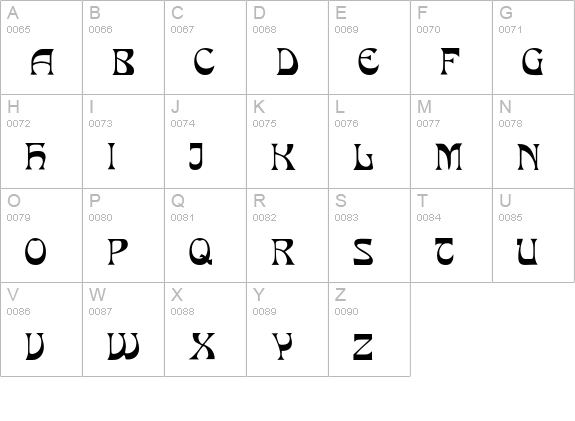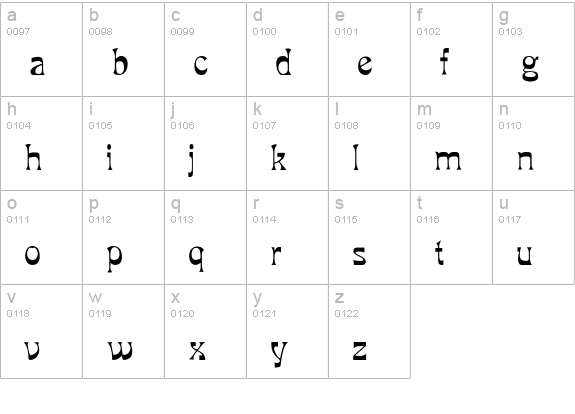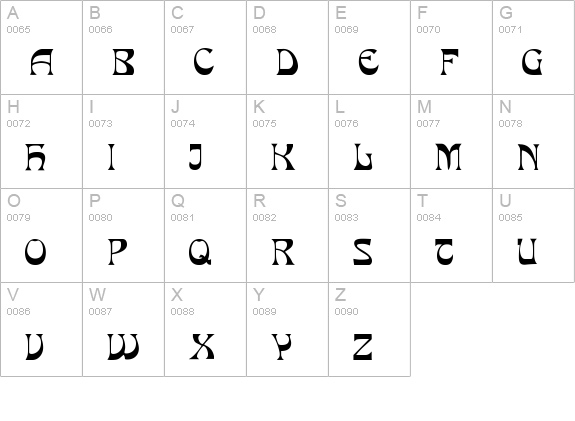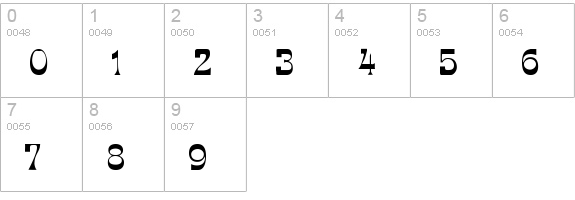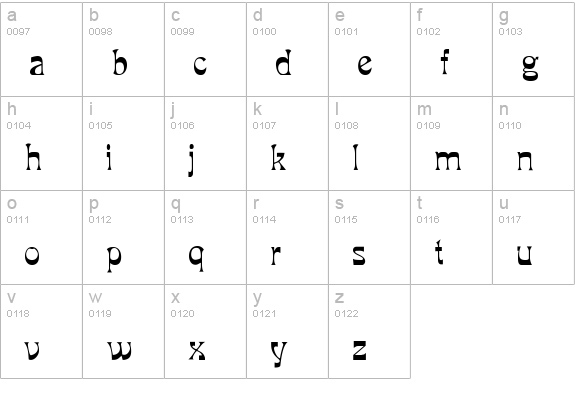
Campbell font is a versatile and modern typeface that exudes elegance and sophistication. With its clean lines and stylish curves, it is perfect for a wide range of design projects, from branding to editorial design. The Campbell font is available in a variety of weights and styles, making it easy to adapt to different design needs. The best part is, Campbell font is completely free to download at FontsMarket.com. This means you can elevate your projects with this beautiful font without any cost. Whether you're working on a poster, website, or logo design, Campbell font is sure to make a statement and give your work a polished finish. Don't miss out on the opportunity to enhance your designs with this stunning typeface, available for free download now!